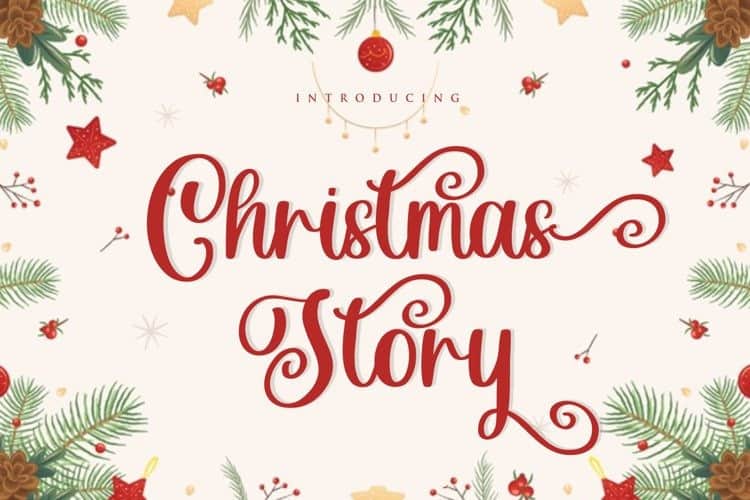
Christmas Story Calligraphy Font
Christmas Story Calligraphy Font is a delicate and elegant handwritten font. Its distinct and well rounded letters make this font a masterpiece. Made from font designer named fikryal. This font is made in a modern style with a very beautiful beginning and ending.